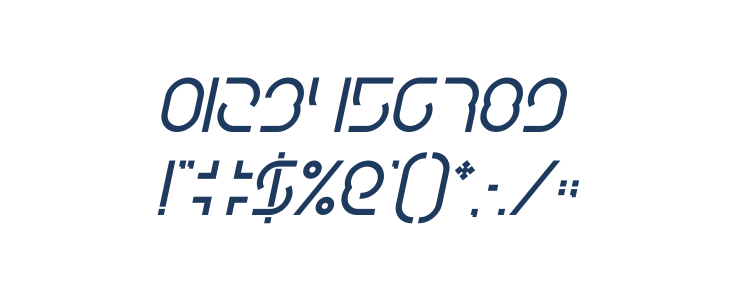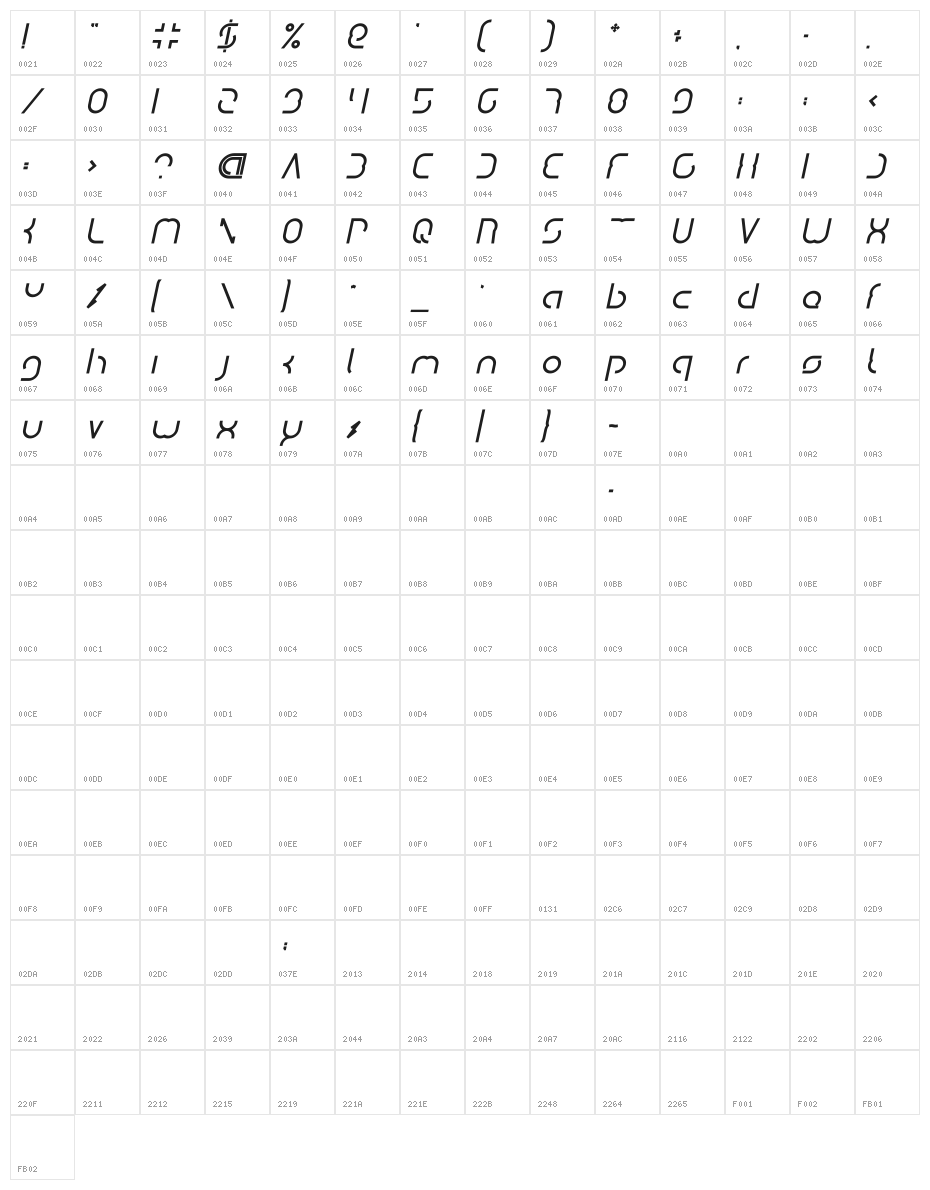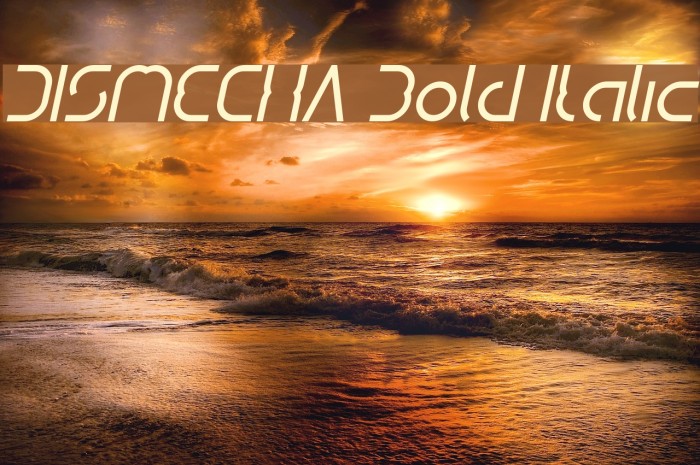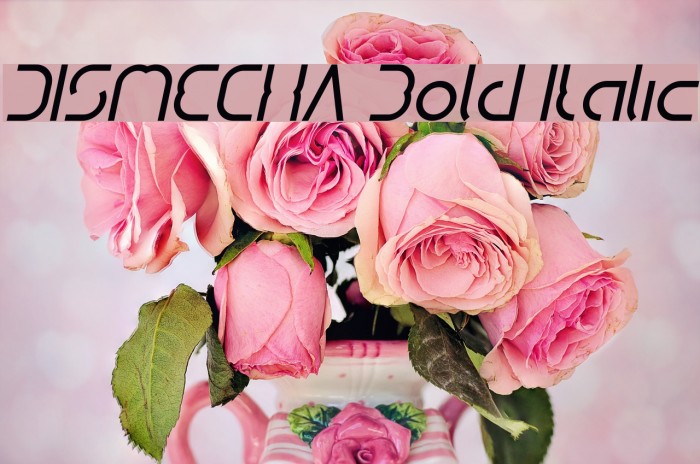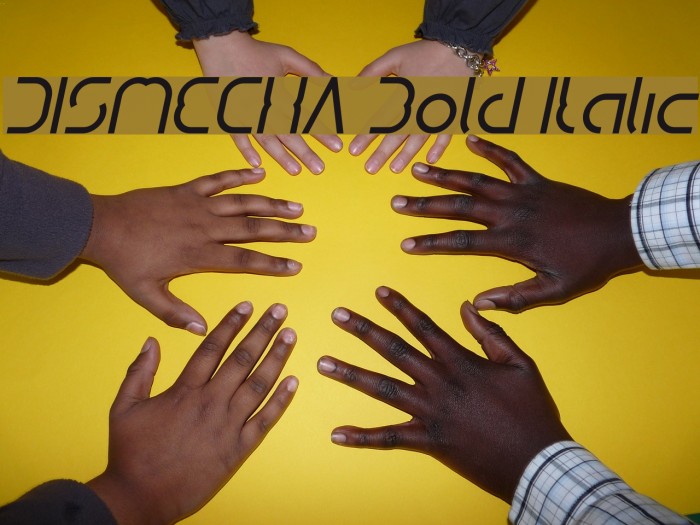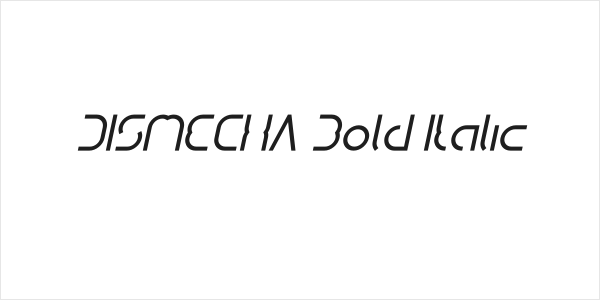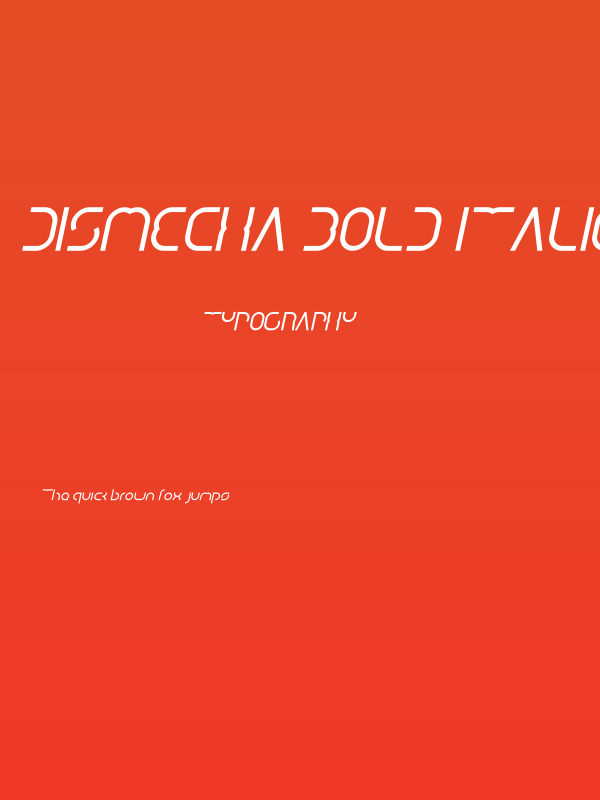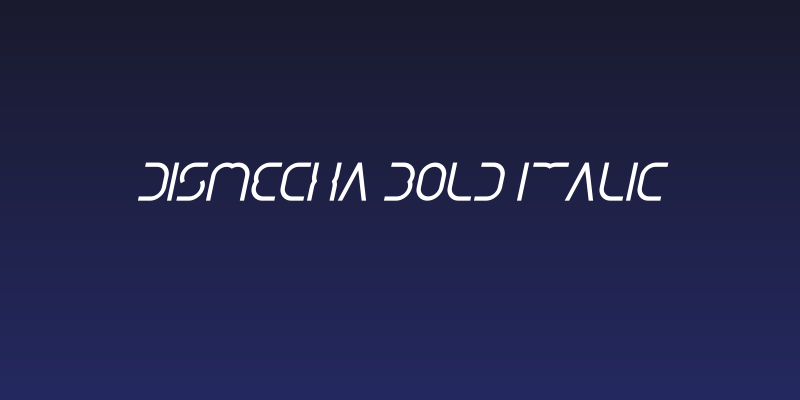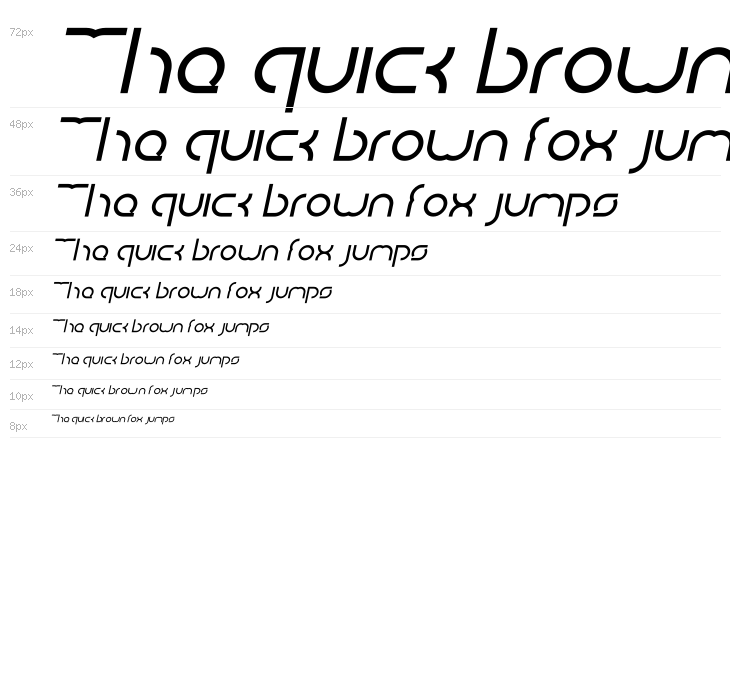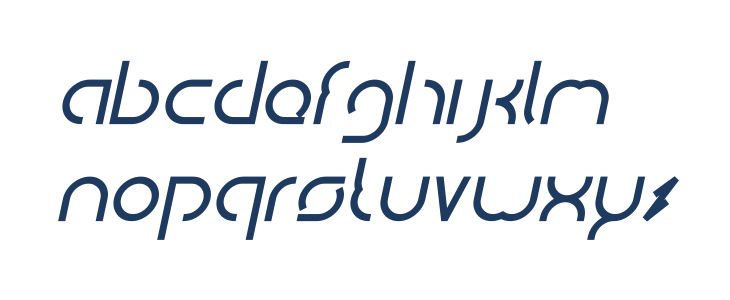
DISMECHA Bold Italic Font
DISMECHA Bold Italic Description
This font features a futuristic and dynamic design with a bold and italicized style. The characters are sleek and angular, with a distinct forward slant that adds a sense of motion and energy. The uppercase and lowercase letters maintain a consistent geometric structure, while the numerals and special characters complement the overall aesthetic. The font's unique cuts and curves give it a modern and innovative appearance, making it suitable for projects that require a cutting-edge and stylish look.
| Proposed Projects | Ideal for technology branding, sci-fi themed projects, modern advertising, and innovative product packaging. |